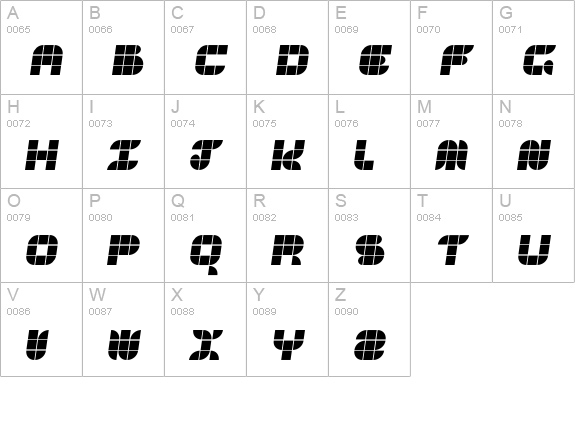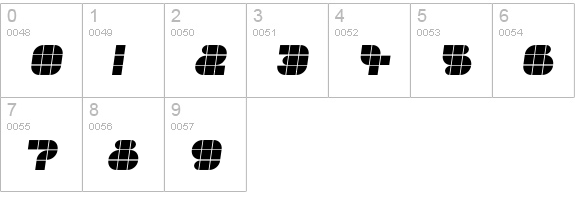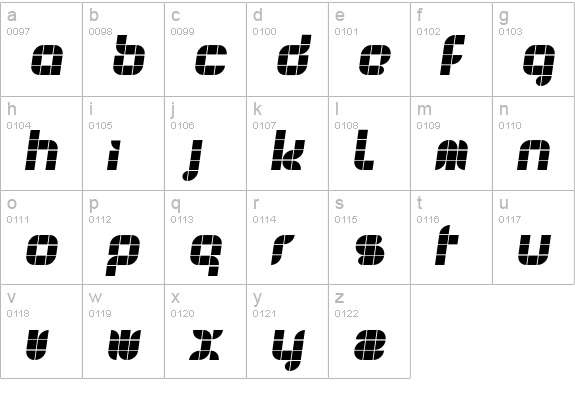
Unit3-Italic Font Details
Unit3-Italic is a distinctive, italic variant in the Unit3 typeface family \xE2\x80\x94 well suited to design and typography projects.
Unit3-Italic font is a stylish and elegant typeface that is perfect for adding a touch of sophistication to any design project. With its slanted and italicized letterforms, this font exudes a sense of modernity and creativity. It is a versatile font that can be used for a wide range of applications, including logos, branding, headlines, and more. One of the best things about Unit3-Italic font is that it is freely available to download at FontsMarket.com. This means that you can easily access and use this font without any cost. Whether you are a professional designer or a hobbyist, having access to high-quality fonts like Unit3-Italic can greatly enhance your creative projects. The clean and legible letterforms of Unit3-Italic font make it easy to read, even at small sizes. The subtle slant and italicized style add a unique and artistic touch to your designs, making them stand out from the crowd. This font is also highly compatible with various design software and can be easily integrated into your workflow. Unit3-Italic font is suitable for both print and digital designs. Its sleek and modern appearance makes it a great choice for websites, social media graphics, advertisements, and more. Whether you are designing a poster, a magazine layout, or a website, this font will add a professional and polished touch to your work. In conclusion, Unit3-Italic font is a free and versatile font that can elevate your design projects to new heights. Its stylish and modern letterforms, combined with its ease of use and compatibility, make it an excellent choice for designers of all levels. Download this font from FontsMarket.com and unlock the creative potential of Unit3-Italic font for your next project.